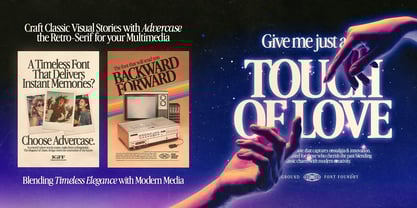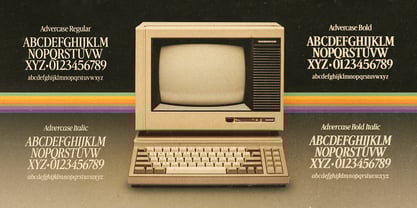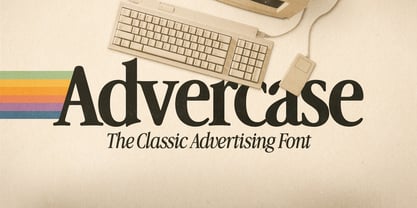
Advercase
by Indieground Design
The Advercase Font Family was designed by Roberto Perrino and published by Indieground Design. Advercase contains 4 styles and family package options.
Advercase Font is a retro serif typeface that will bring back the classic atmospheres of vintage ads and old personal computers! It’s perfect for creating eye-catching typographic artwork, and works great as a web font for online projects. Bring back the vibes of 80s print ads, floppy disks and electronics, and create fantastic work that will stand out on websites and social media feeds! This awesome retro font is based on Apple’s Garamond adaptation and use of the typeface in their advertising campaigns during the 80s and 90s. Designed with love and attention by the Indieground Team to meet the needs of creative professionals, it offers the freedom to design anything that needs a retro, vintage feel while maintaining an elegant, contemporary edge. Adding to its versatility, it integrates into various design projects, elevating them with its unique blend of past and present aesthetics.